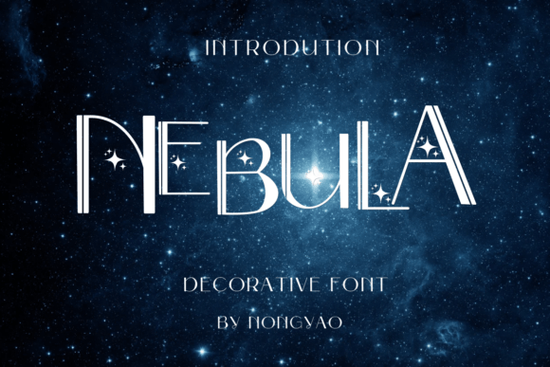
If you've been searching for a decorative typeface that works equally well for personal journaling and commercial design projects, the Nebula Font is worth a closer look. It's a versatile decorative typeface designed for note-taking, diary writing, greeting cards, and a wide range of other creative applications. Whether you sell on print-on-demand platforms or simply enjoy making handmade cards, this font brings a distinctive, eye-catching style to your work.
What Can You Create With a Decorative Font Like This?
Decorative fonts are built for projects that need personality. They're not meant for long paragraphs of body text they shine in short, impactful placements. The Nebula typeface fits naturally into designs like:
- Greeting cards birthday, holiday, thank-you, and sympathy cards
- Wedding stationery invitations, save-the-dates, menu cards, and place settings
- Social media posts quotes, announcements, and promotional graphics
- Print-on-demand products mugs, t-shirts, tote bags, and posters
- Personal projects journaling, diary headers, and scrapbooking
- Banners and signage event decor, sale banners, and booth displays
Because decorative typefaces grab attention quickly, they work best for headlines, titles, and short phrases. Pairing them with a clean serif or sans-serif font for supporting text keeps your layout balanced and readable.
Is Nebula a Good Fit for Print-on-Demand Sellers?
If you run a shop on Etsy, Redbubble, Merch by Amazon, or a similar platform, font choice matters more than most people think. A unique decorative font helps your designs stand out in crowded marketplaces. The Nebula typeface gives you that visual edge without looking overly complicated or hard to read at smaller sizes.
A few tips for using decorative fonts in POD designs:
- Keep text short. One to four words works best on mugs, shirts, and stickers.
- Test at different sizes. Make sure your design looks good both on a phone screen and on a printed product.
- Pair wisely. Use the decorative font for your main phrase and a simpler font for any supporting text.
How Does It Compare to Other Decorative Fonts?
There's no shortage of decorative typefaces available online. Fonts like Wedding Story Monogram focus on elegant, formal projects think bridal showers and anniversary celebrations. The Nebula font, on the other hand, leans into a more versatile decorative style that works across casual and formal contexts.
Here's a quick comparison to help you decide:
- Best for formal events: Wedding Story Monogram
- Best for everyday creative projects: Nebula
- Best for journaling and note-taking: Nebula
- Best for monogram-style designs: Wedding Story Monogram
Having both in your font library gives you more flexibility across different project types. If you design for clients or sell templates, that range is especially useful.
Where Can You Use Decorative Fonts Beyond Cards and Mugs?
Many people buy a decorative font thinking they'll only use it for one project, then discover it works in places they didn't expect. Beyond the usual greeting cards and merchandise, here are some less obvious uses:
- Blog graphics and featured images
- Email newsletter headers
- Recipe cards and cookbook layouts
- Classroom materials and homeschool resources
- Party invitations and printable decor
- Brand mood boards and style guides
If you're a crafter who uses a Cricut or Silhouette machine, decorative fonts also cut beautifully as vinyl decals and heat transfers. Just make sure to weld or attach your text in your cutting software before sending it to the machine.
Tips for Getting the Most Out of Your Font Purchase
Once you've downloaded the Nebula typeface, a few small steps will help you get better results:
- Install it properly. Close your design software before installing, then reopen it so the font appears in your library.
- Experiment with spacing. Adjust letter spacing (tracking) and line height to find the right look for each project.
- Use it at the right size. Decorative fonts generally look best at larger sizes don't force them into small body text.
- Save your favorite pairings. Once you find a combination that works, note it down so you can reuse it across projects.
Quick Checklist Before You Buy
Before adding a new font to your collection, run through this short checklist:
- ✔ Does the license cover your intended use (personal, commercial, POD)?
- ✔ Does the font style match the tone of your project?
- ✔ Have you checked how it looks at the size you'll actually use it?
- ✔ Do you have a complementary font for body text or supporting details?
- ✔ Does it include the characters and glyphs you need (numbers, punctuation, special characters)?